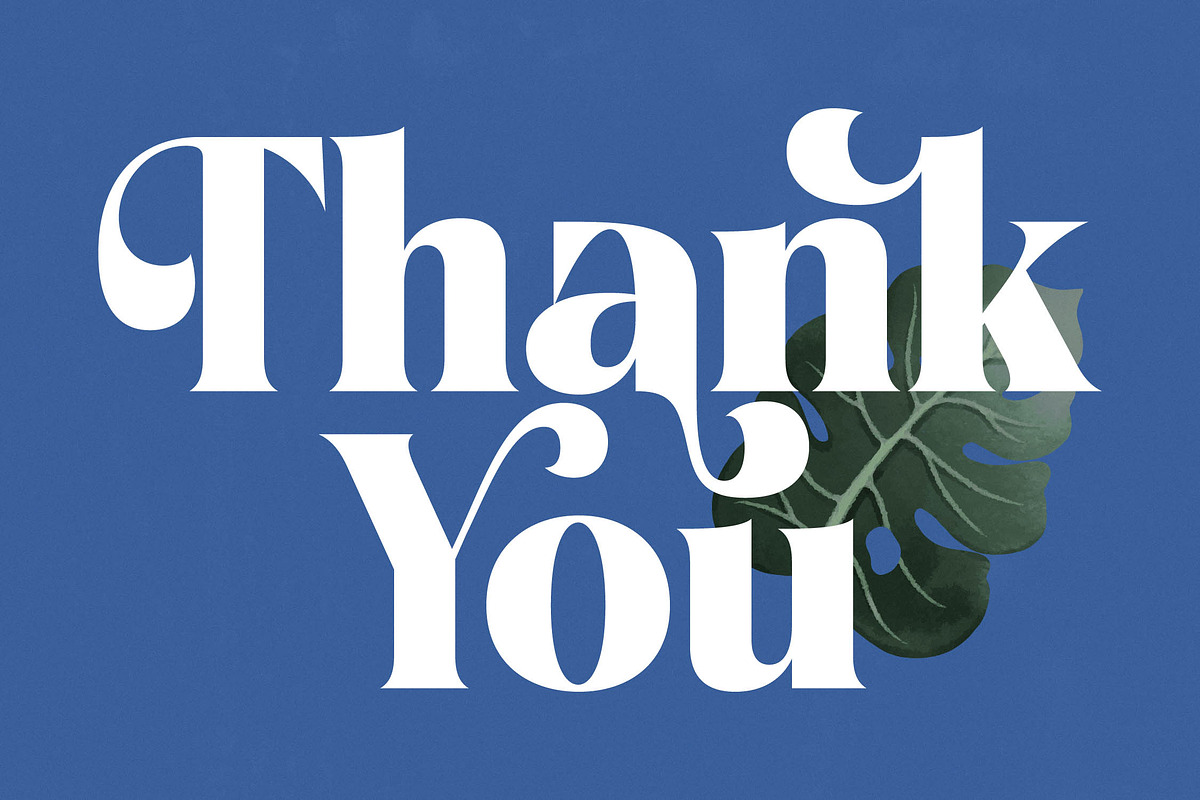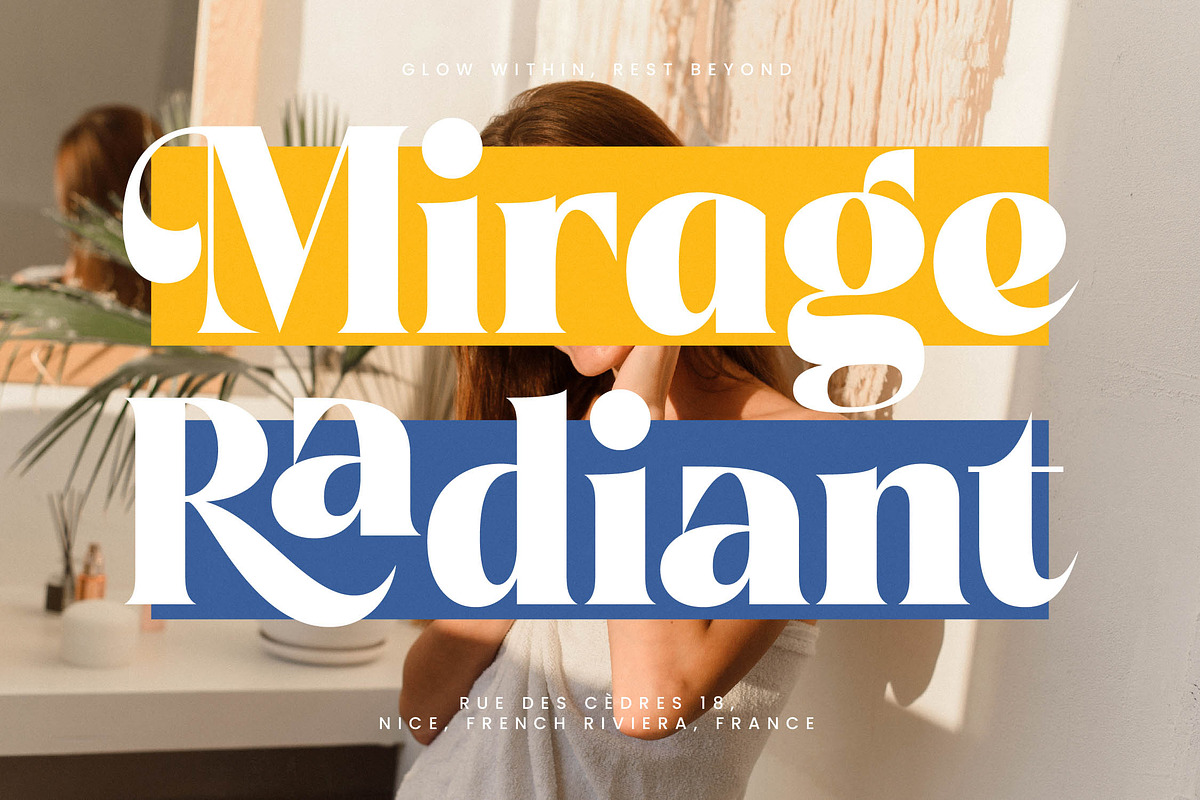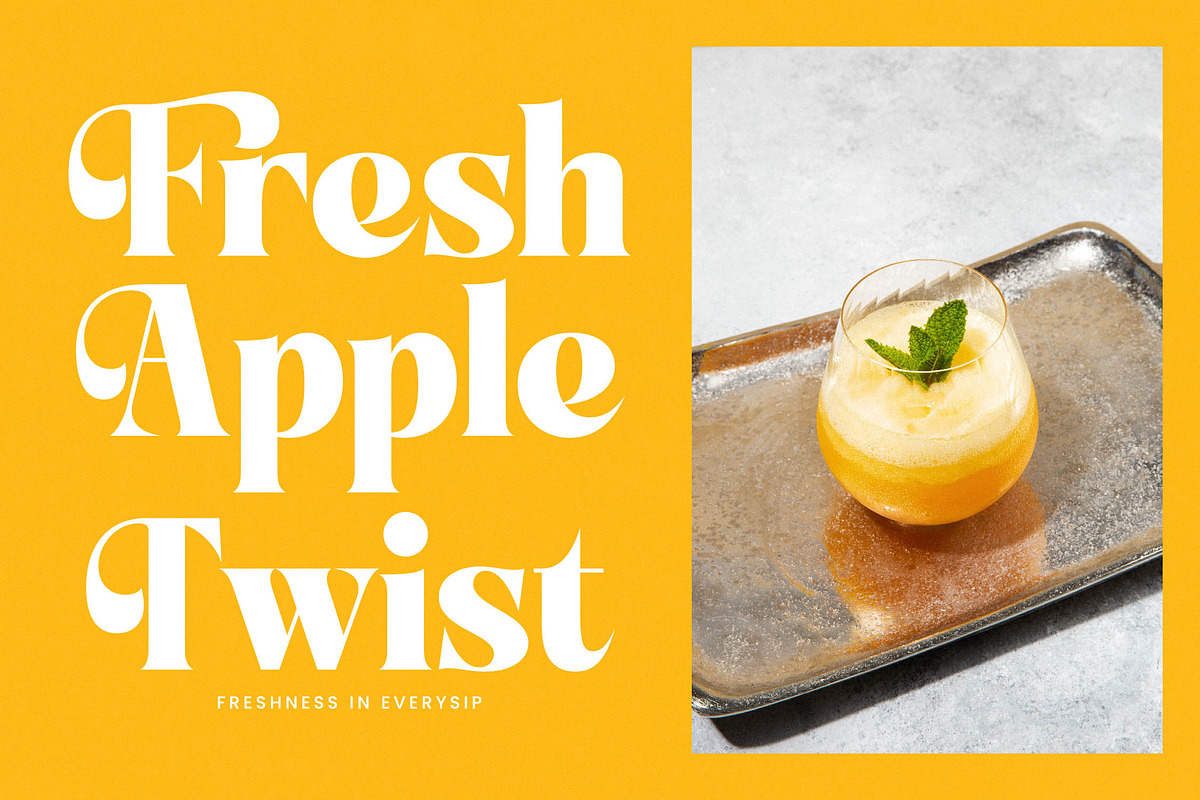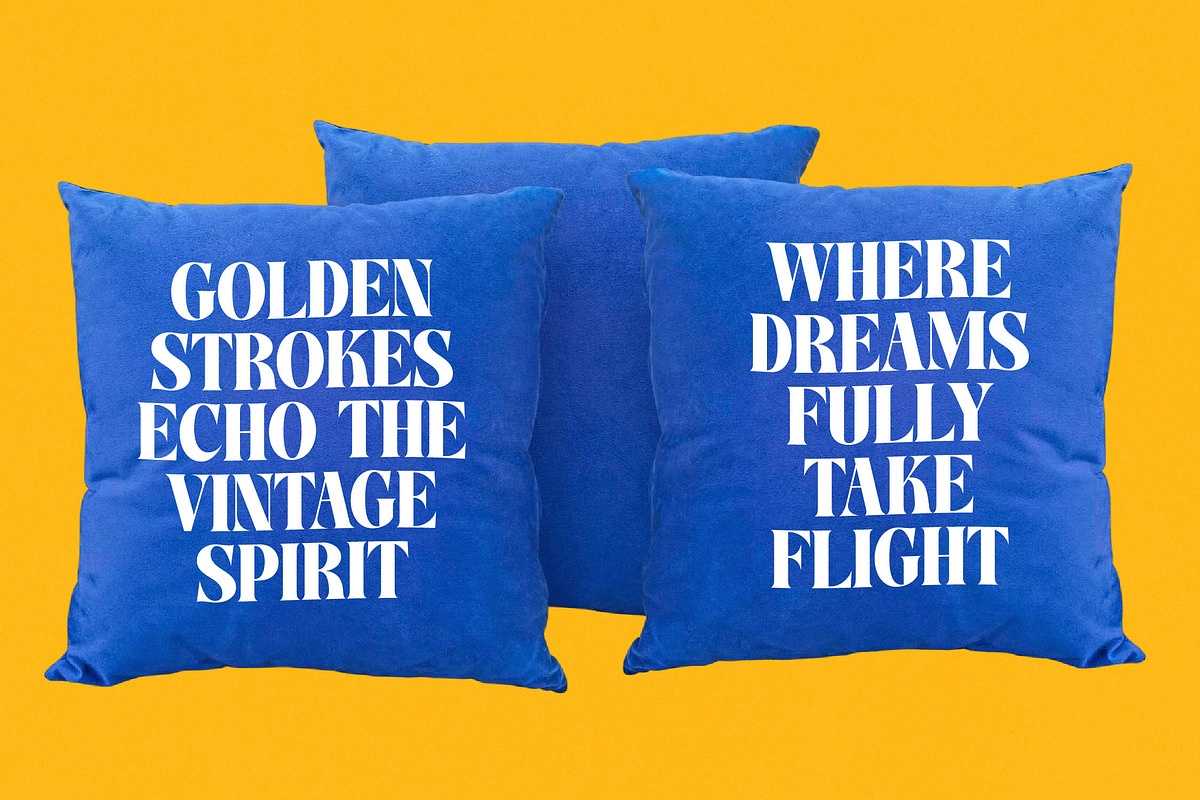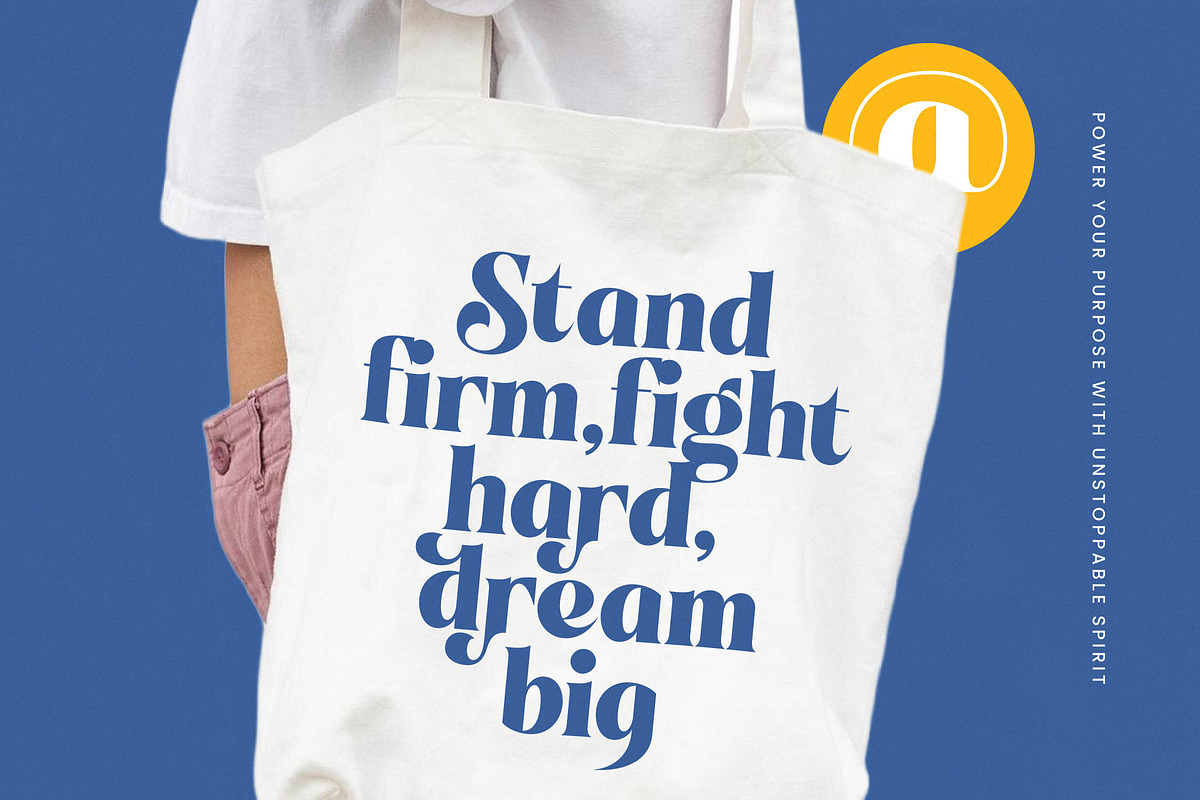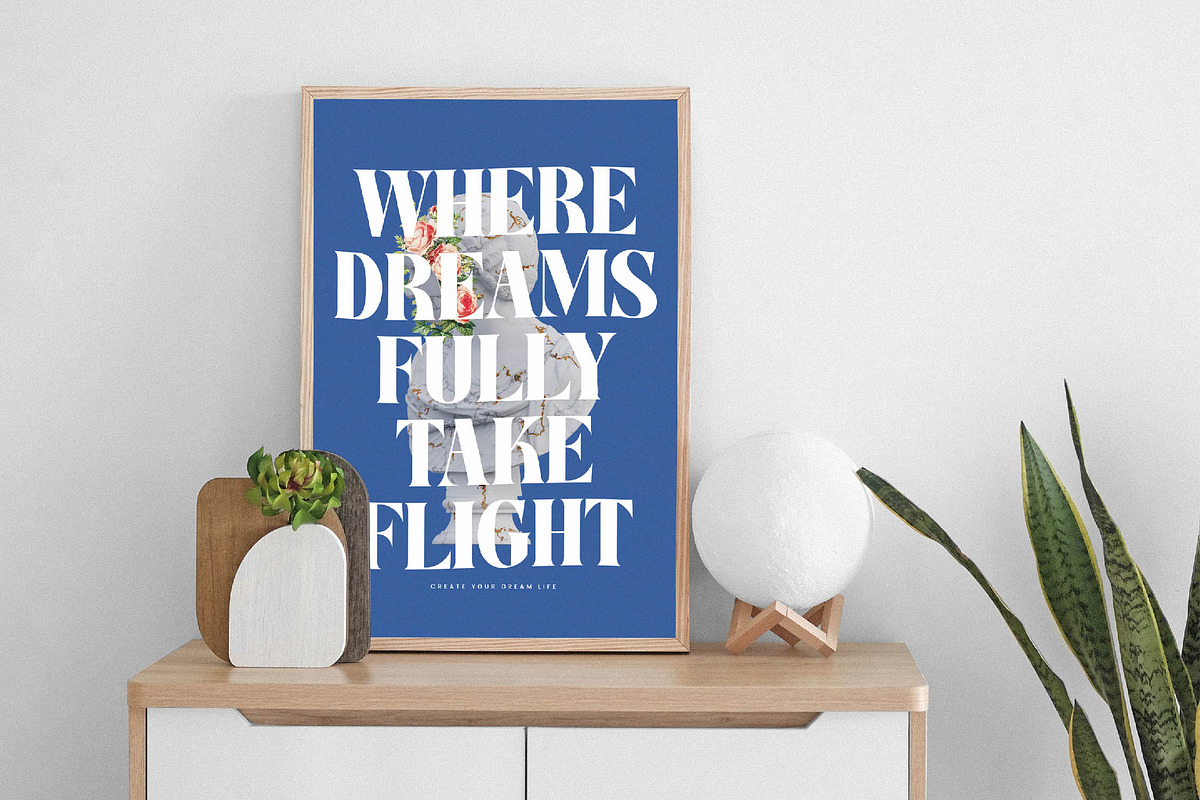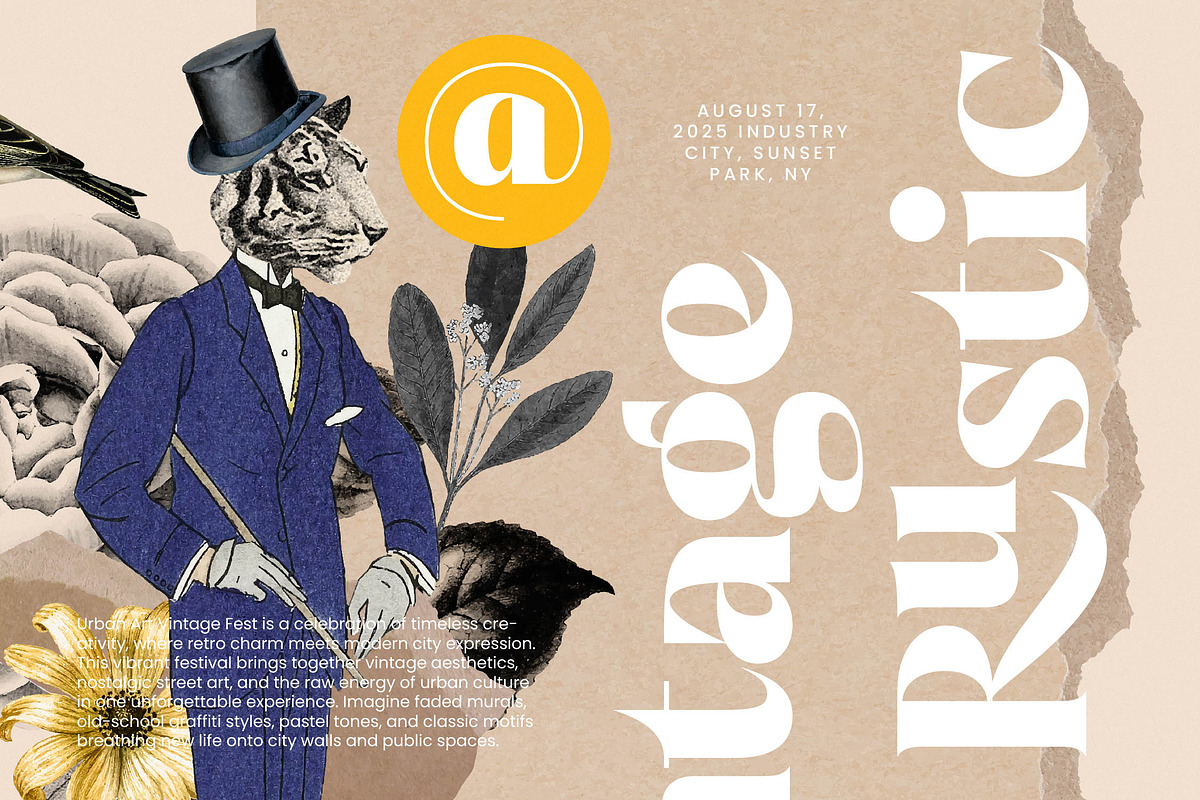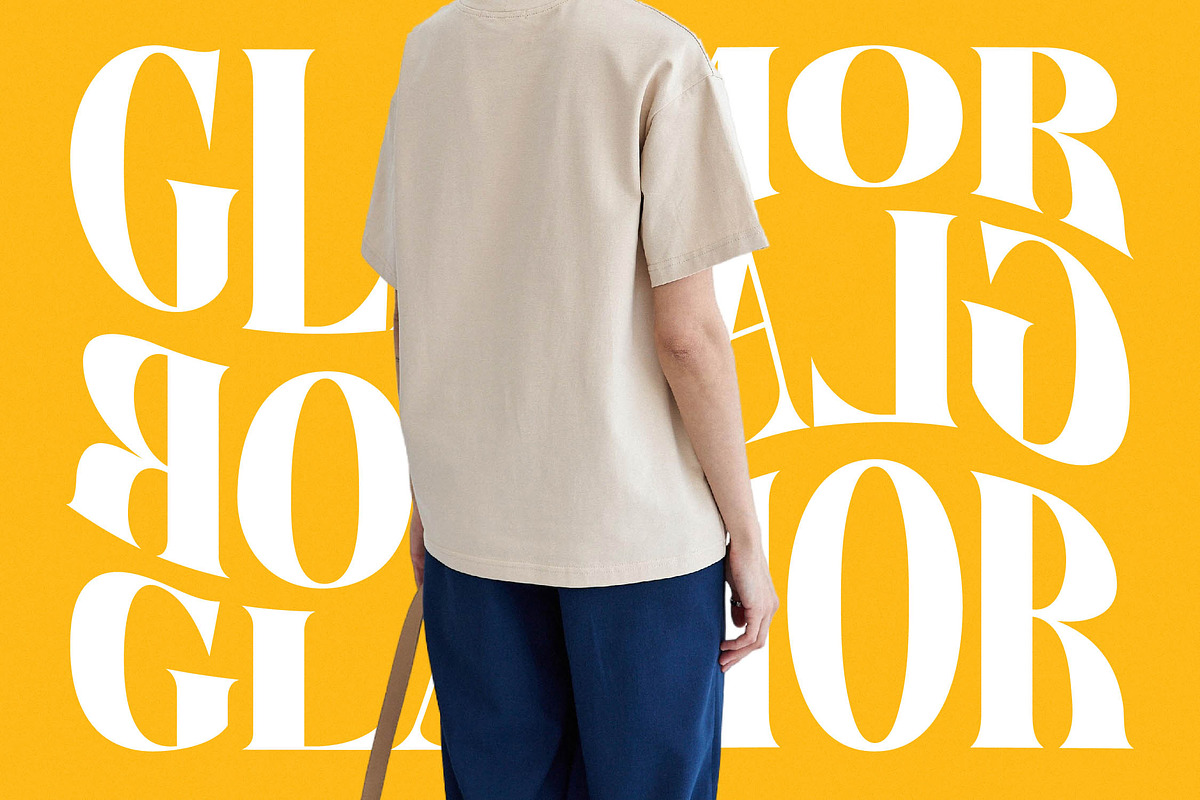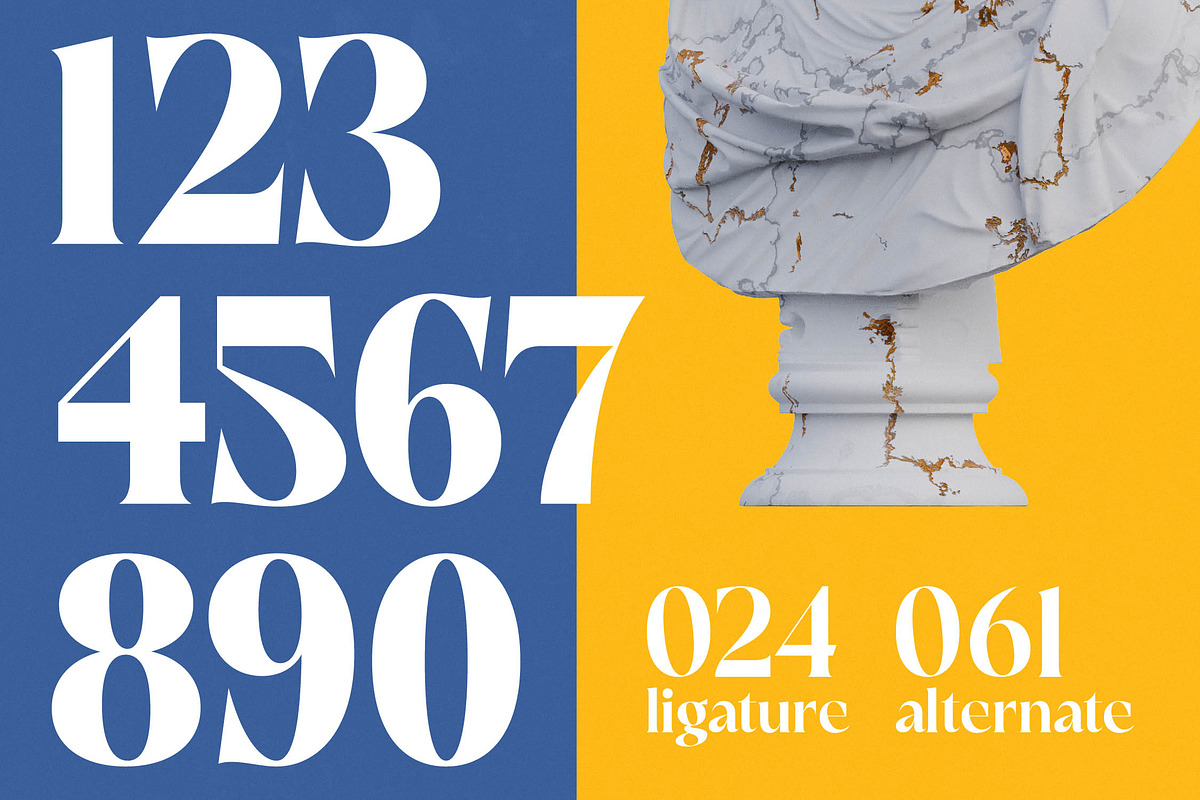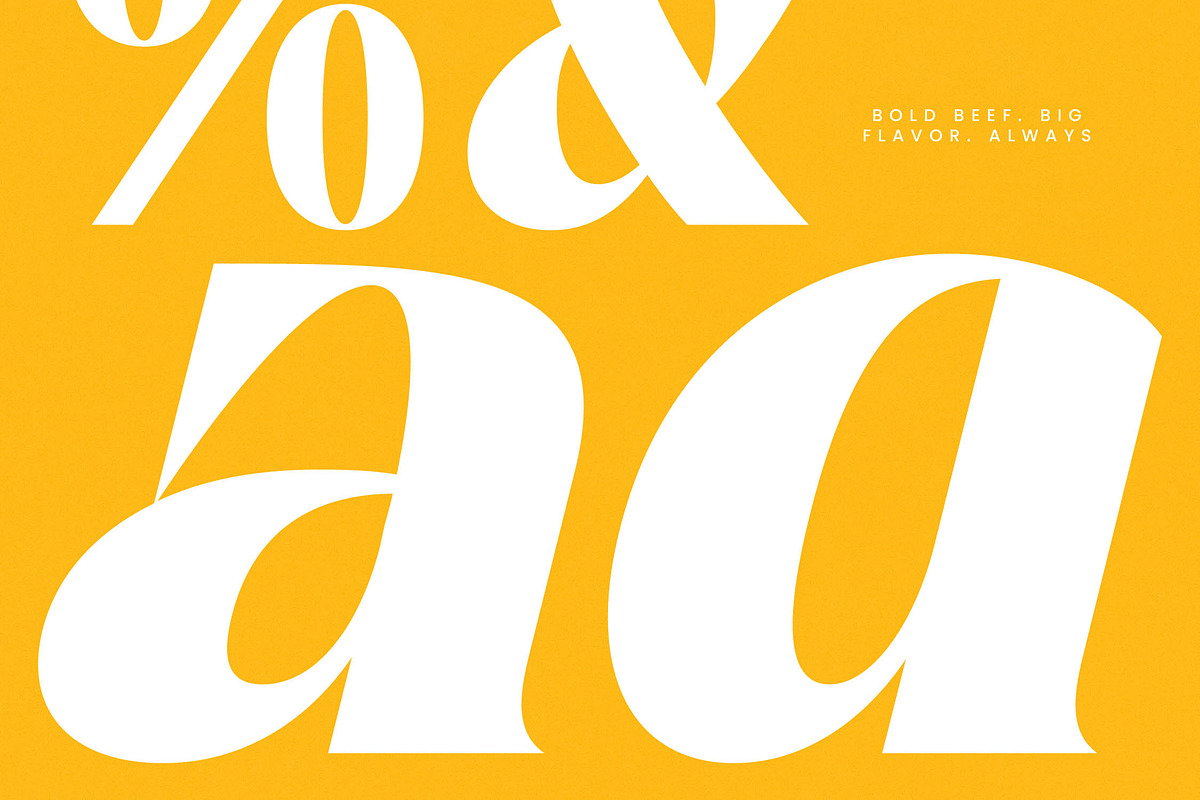
Night Roasty Modern Serif Font
Night Roasty captures a rare balance of classic sophistication and experimental modernism, making it a standout choice for high-end design projects. It is a typeface that speaks in a whisper of luxury while demanding the full attention of the viewer through its bold, high-contrast curves.
Inspired by the transition from day to night, this font draws from the rhythmic interplay of shadows and light found in contemporary art galleries and high-fashion boutiques. The visual atmosphere is one of timeless grace, blending the structured elegance of traditional serifs with the fluid, organic movement of nature.
With its modern serif display architecture, this typeface is engineered for maximum branding impact and professional polish. Every letterform is a testament to luxury typography, featuring a high-contrast serif profile that ensures your headers look like a curated piece of editorial font artistry.
As the modern serif trend continues to dominate the creative landscape, designers are constantly searching for character-driven typography that breaks away from the ordinary. This font perfectly aligns with the rise of editorial display fonts that prioritize unique silhouettes and artistic flair over generic geometry.
From the precision required in logo design to the expansive storytelling of branding campaigns, this font excels in diverse environments. It is the ideal companion for high-end editorial layouts, sophisticated packaging concepts, romantic wedding stationery, and the fast-paced world of fashion marketing.
The true power of this typeface lies in its extensive collection of ligatures and alternates that allow for custom-tailored typographic compositions. Designers can explore unique swashes and rely on comprehensive multilingual support to reach a global audience using international characters.
- Ligature 024 Alternate 061